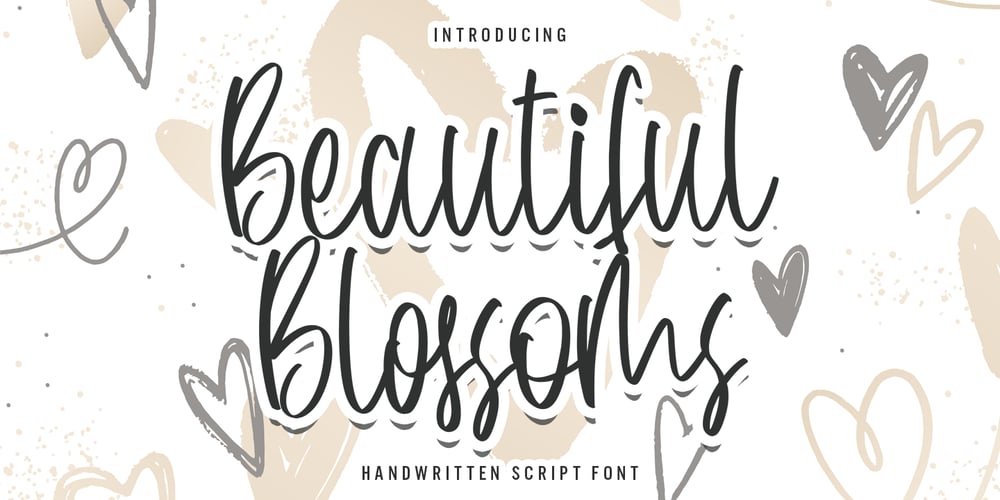
Beautiful Blossoms Font Family was designed by Asep Rendi and published by Arendxstudio. Beautiful Blossoms contains 1 styles and family package options. Introducing a Beautiful Blossoms – Handwritten Script Font with sharp and beautiful letters that create fonts that are modern, trendy and elegant. Wayfaring came with opentype features such stylistic alternates, stylistic sets & amp; amp; ligatures good for logotype, poster, badge, book cover, tshirt design, packaging and any more.Features : • Character Set A-Z • Numerals & Punctuations (OpenType Standard) • Accents (Multilingual characters) • Ligature • AlternateThere it is! I really hope you enjoy it